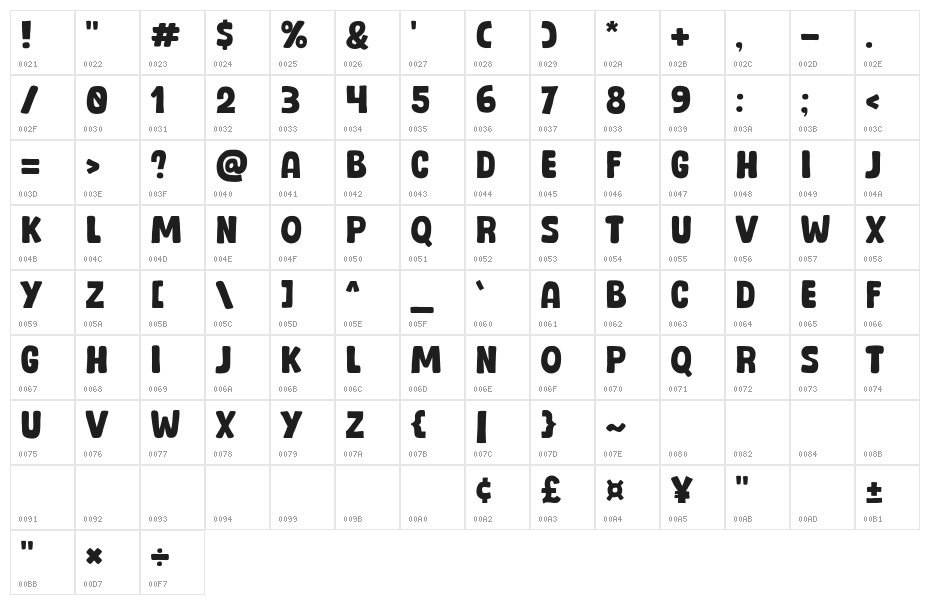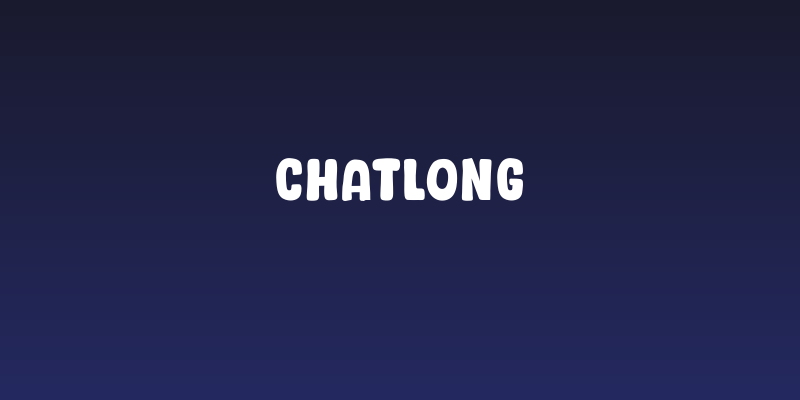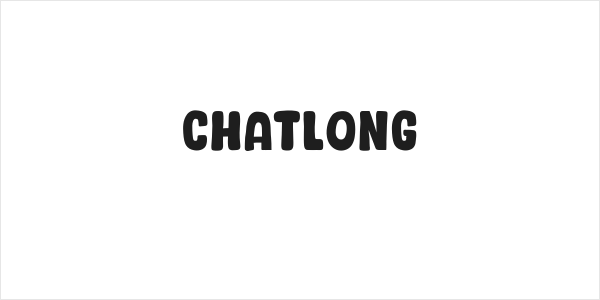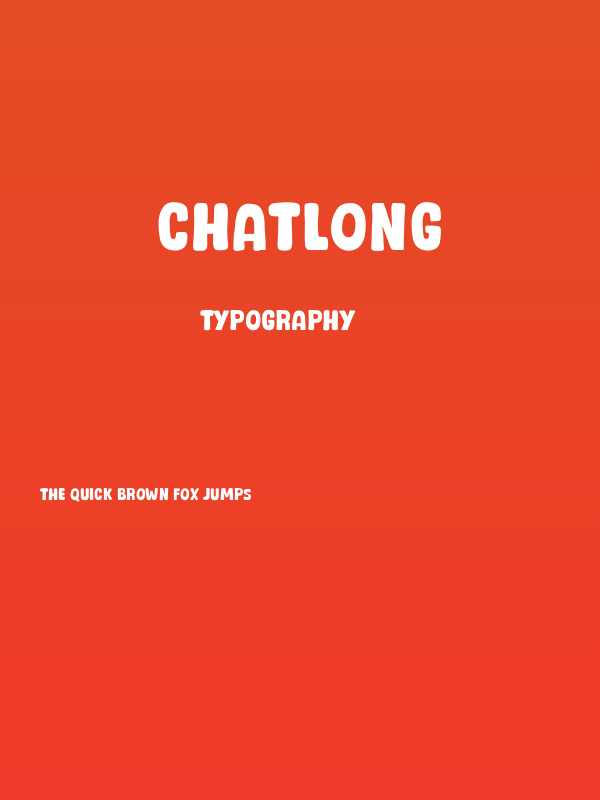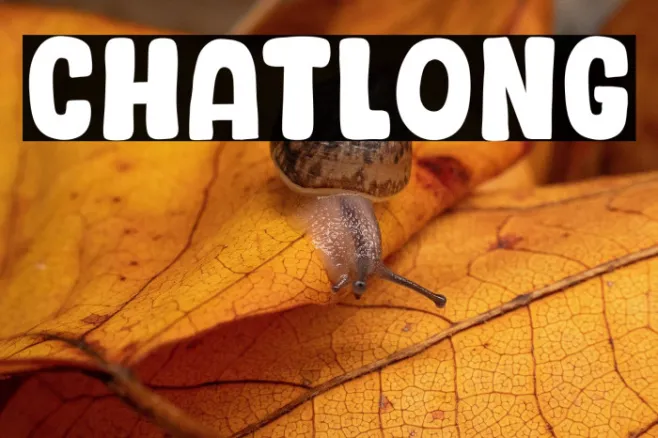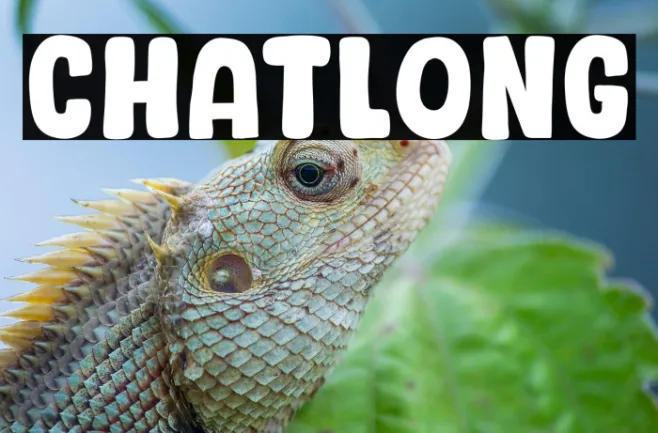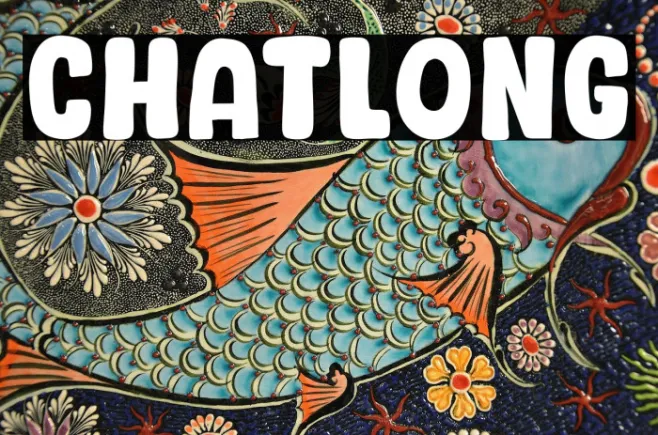
Chatlong Font
Chatlong Description
This font features bold, rounded characters with a playful and friendly appearance. The letters are thick and have a uniform stroke width, giving them a strong presence on the page. The rounded edges contribute to a casual and approachable feel, making it suitable for informal and fun designs. The numbers and special characters maintain the same bold and rounded style, ensuring consistency across all elements. The overall look is cohesive and visually appealing, ideal for capturing attention in a lighthearted context.
| Overall Style | Playful, Casual |
| Proposed Projects | Ideal for children's books, playful branding, casual posters, and fun social media graphics. |